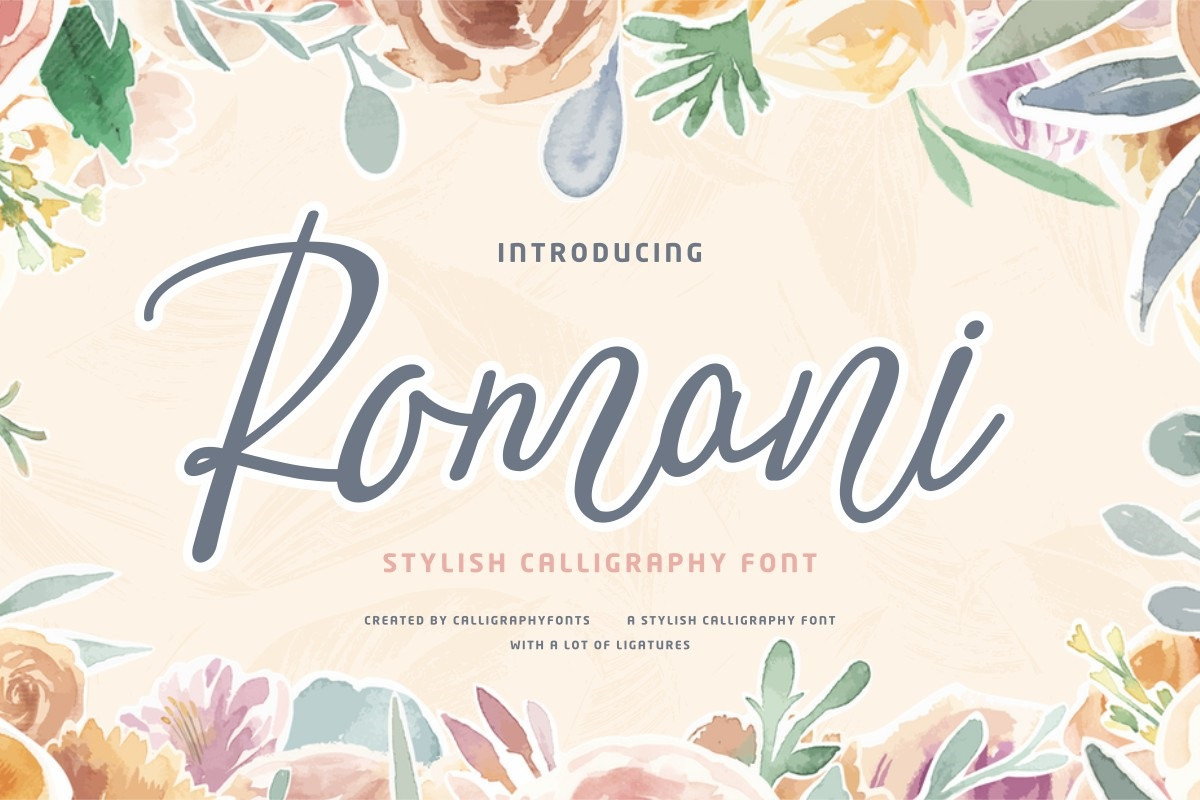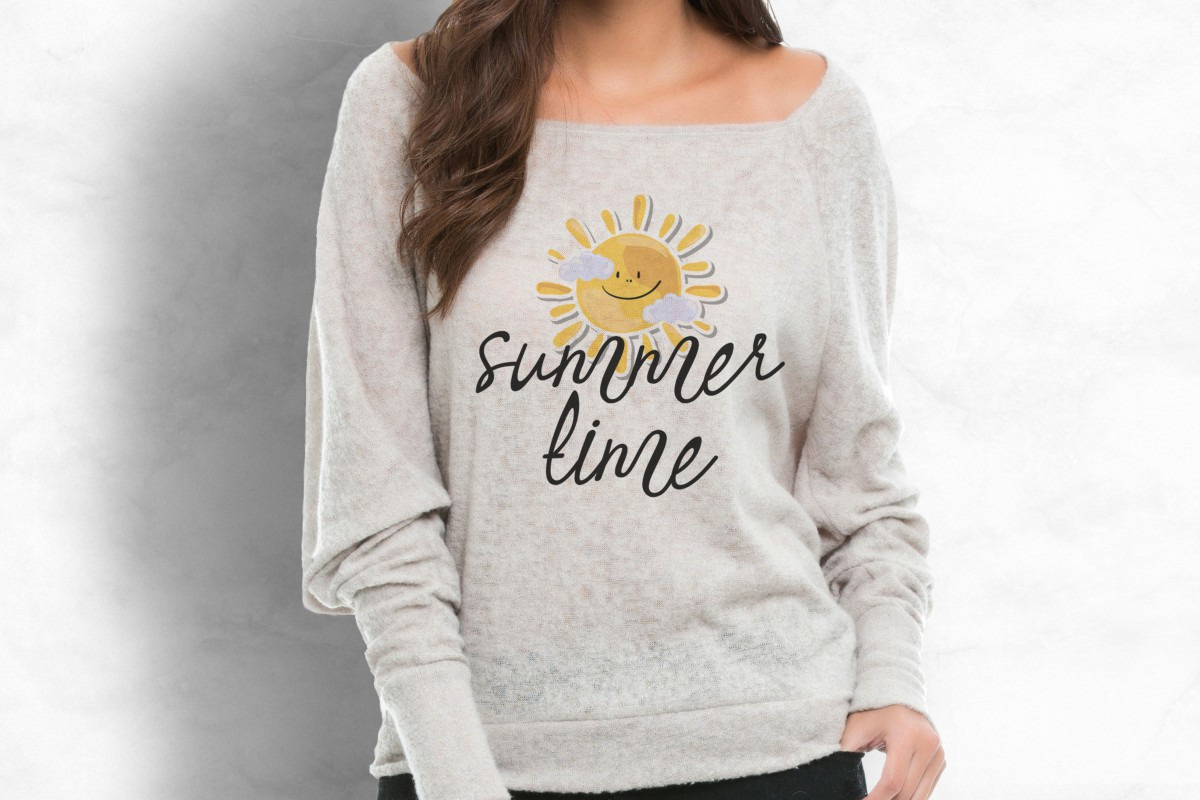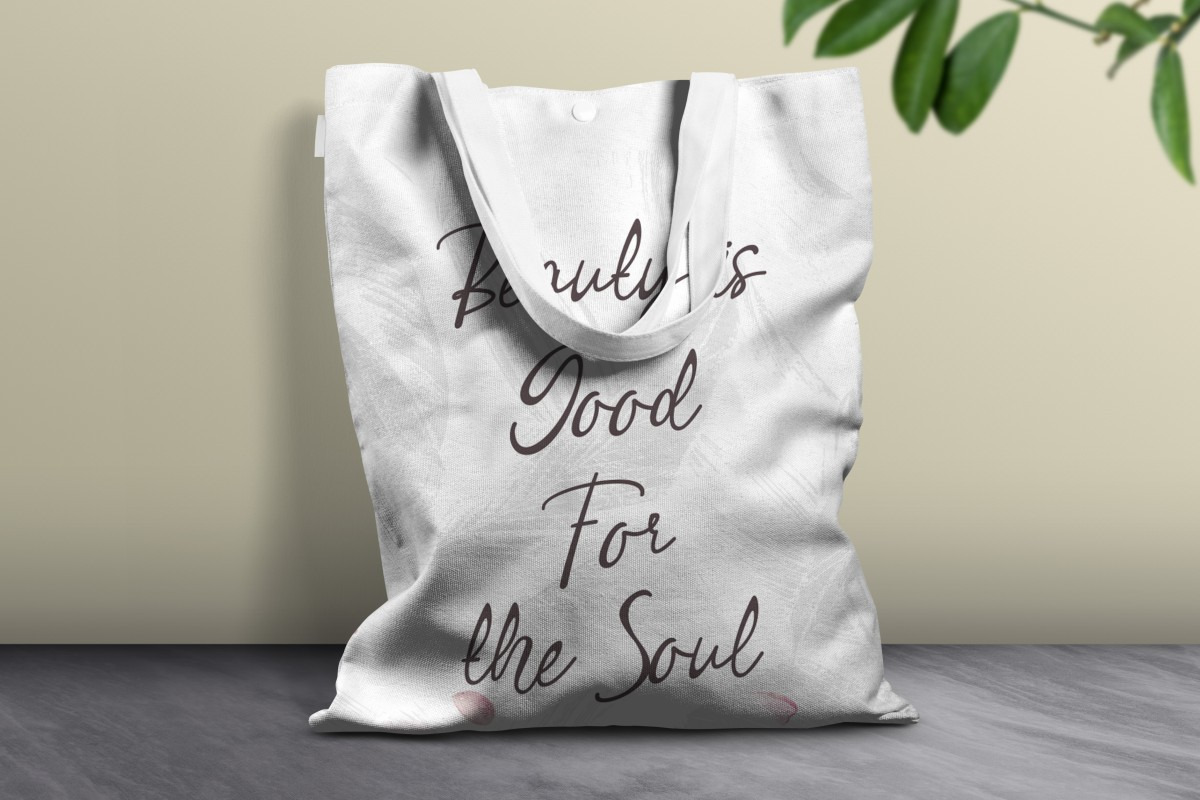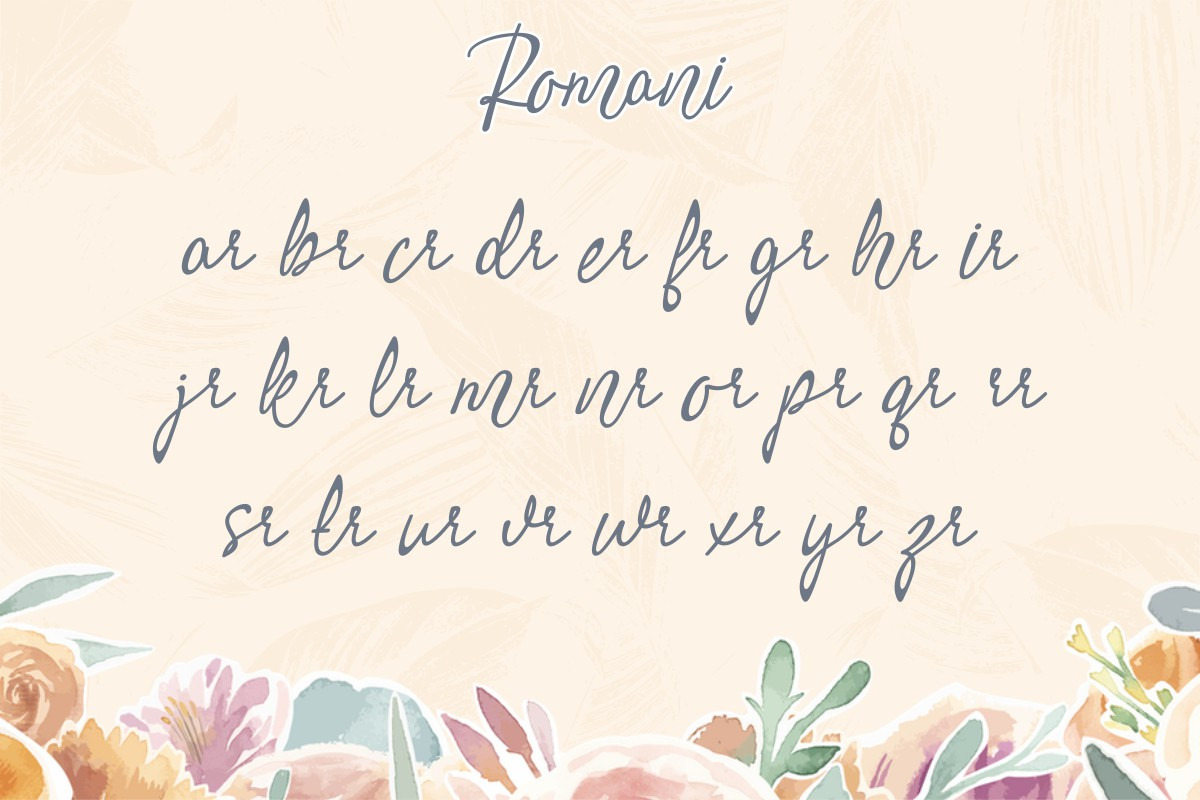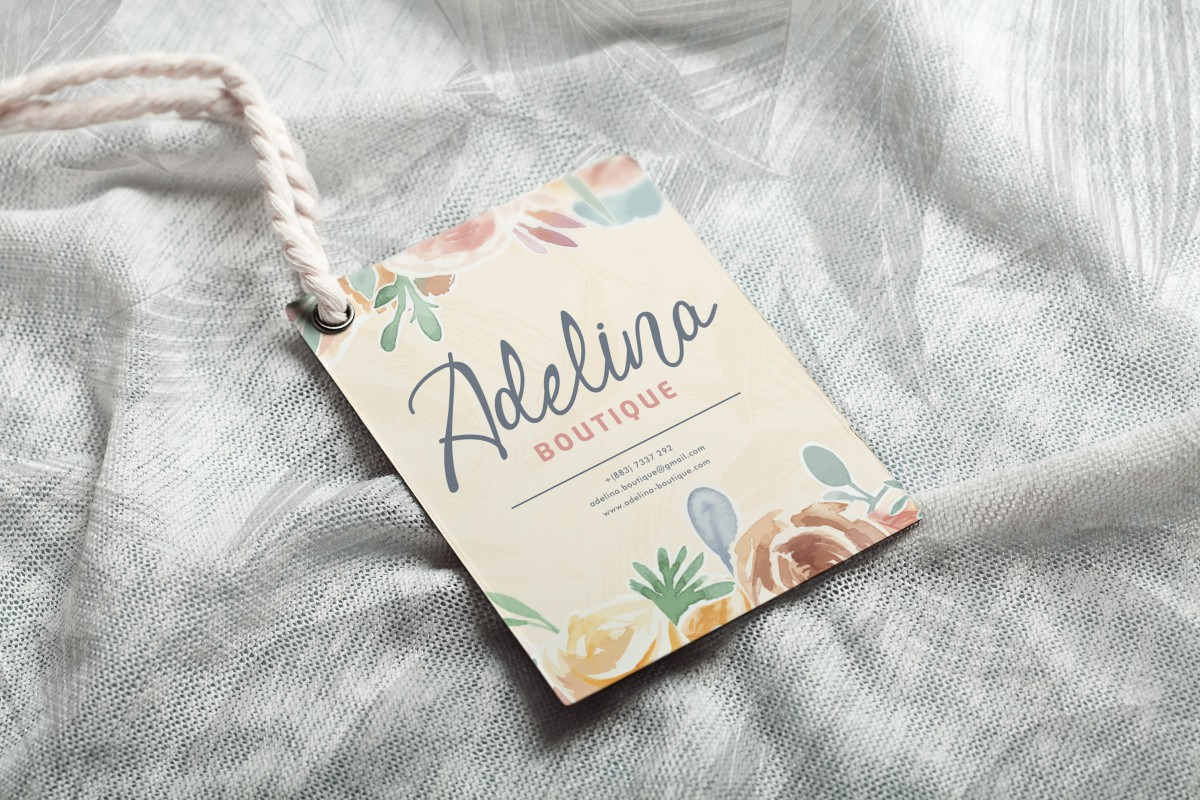
Romani Calligraphy Font
Romani Font is a chic and stylish calligraphy script font that emanates elegance. It maintains its classic calligraphy influences while feeling elegant and timeless. Its stylish ligatures make this font flowless and perfect match for many business and industries including clothing, cosmetic, invitations, quotes, prints designs, wall decor, title and more!
Romani Font will be a great choice to make brandings, product labels, packaging, promotions, social media headlines, crafts etc. It maintains its classic calligraphy influences while feeling elegant and stylish look. This font supports international characters and works well on Windows and MAC OS. This font is also PUA encoded which means you can access all glyph with ease!